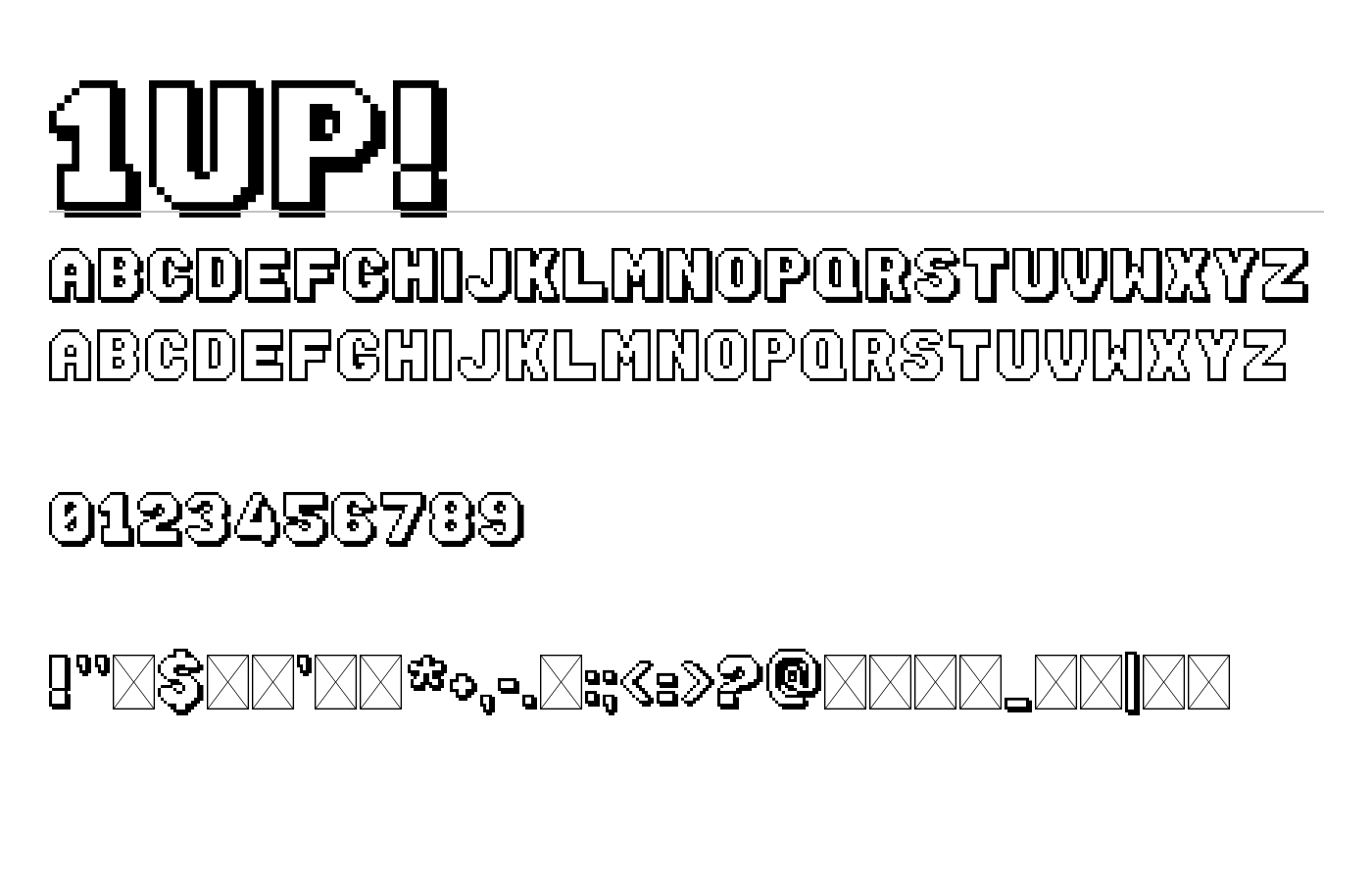
1UP! is a playful, pixel-inspired sans serif font that channels the nostalgic charm of retro video games. With its bold, blocky letterforms and sharp, geometric edges, it brings a fun and energetic vibe, making it ideal for gaming, digital artwork, and youth-focused branding. This font stands out best in headlines, logos, and posters where a quirky, vintage gamer feel is desired.
1UP! Font
About 1UP! Font
| Font family | 1UP! Font |
| Designer | rikyozone |